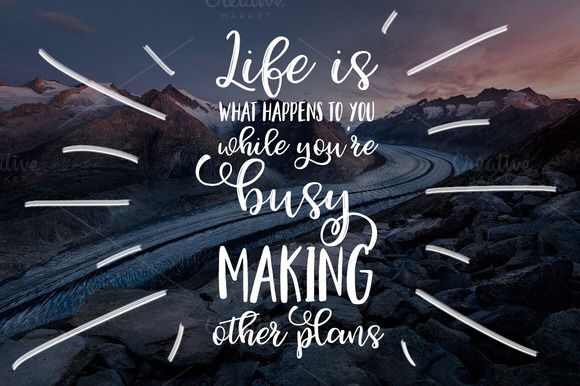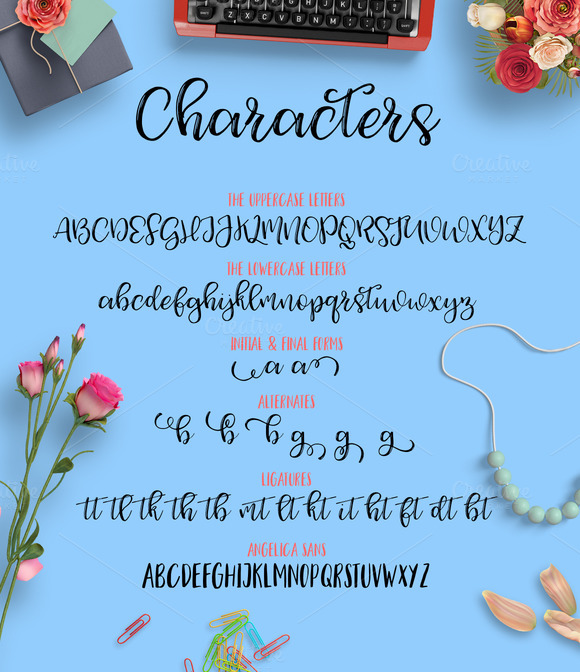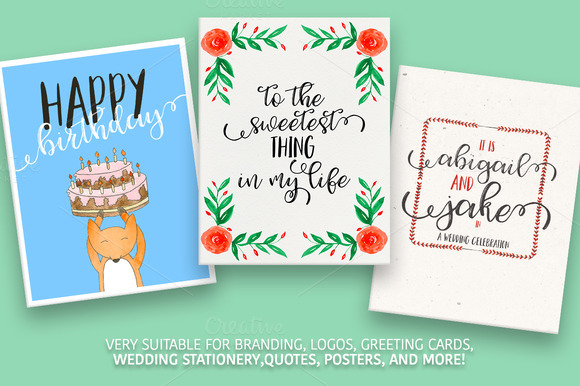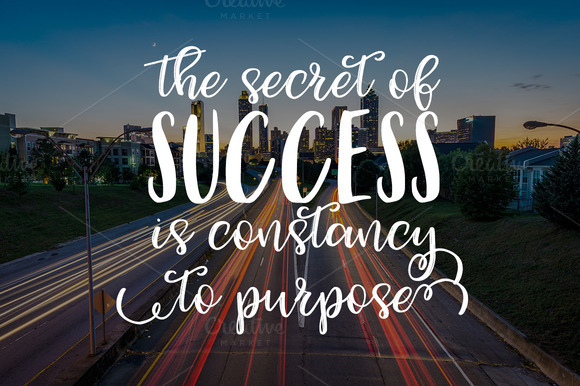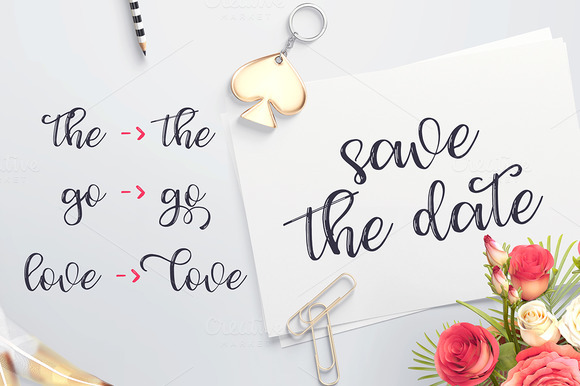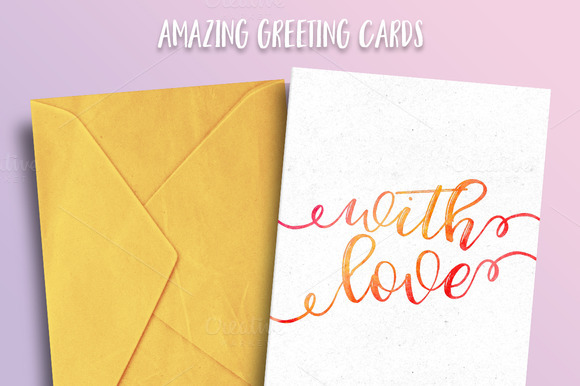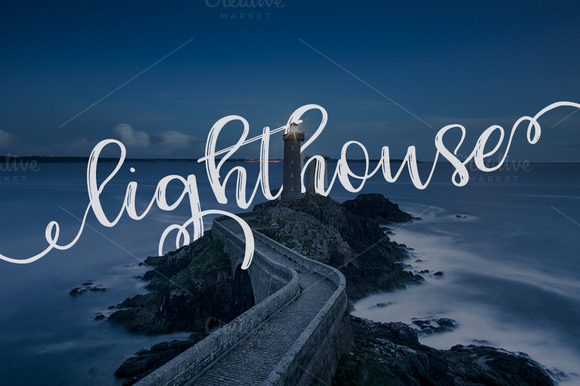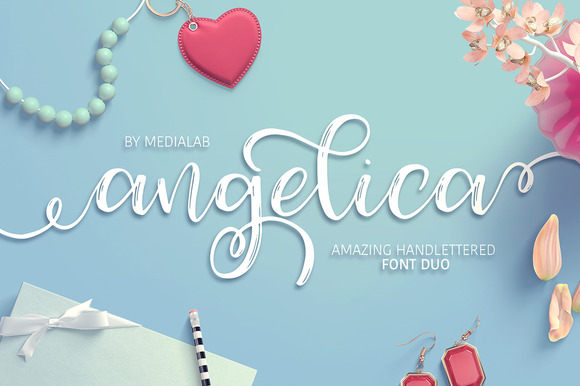
Angelica DUO Script Font
Angelica DUO – a new fresh handmade calligraphy font. Very suitable for greeting cards, branding materials, business cards, quotes, posters, and more!
Angelica DUO – includes many alternative characters.Is coded with PUA Unicode, which allows full access to all the extra characters without having special designing software. Mac users can use Font Book. Windows users can use Character Map to view and copy any of the extra characters to paste into your favourite text editor. For folks who have opentype capable software : The alternates are accessible by turning on “Stylistic Alternates” and “Ligatures” buttons on in Photoshop’s Character panel, or via any software with a glyphs panel, e.g. Adobe Illustrator, Photoshop CC, Inkscape.